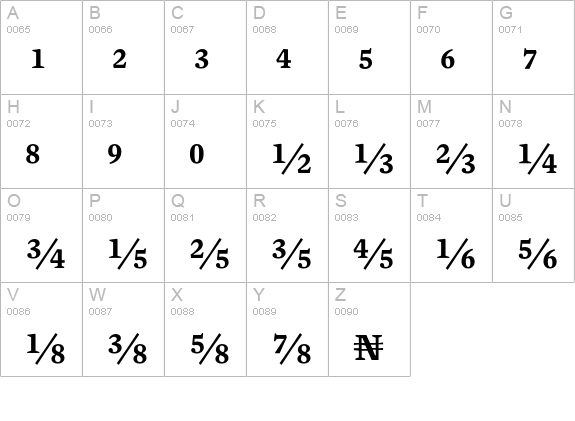
Mercury Numeric G2 Semibold Font Details
Mercury Numeric G2 Semibold is a sub-bold, structured variant in the Mercury typeface family \xE2\x80\x94 well suited to sub-headlines and emphasised passages.
Mercury Numeric G2 Semibold font exudes a sense of modernity and sophistication with its sleek and stylish design. This versatile typeface strikes the perfect balance between professionalism and creativity, making it an ideal choice for a wide range of projects. Featuring clean lines and a bold, commanding presence, Mercury Numeric G2 Semibold font is perfect for headlines, titles, and other prominent text elements. Its strong, confident appearance commands attention and ensures that your message is delivered with impact. The best part? Mercury Numeric G2 Semibold font is available for free download at FontsMarket.com. Whether you're a designer looking to add a touch of elegance to your project or a business owner in need of a font that makes a statement, this font is the perfect choice. Download it today and elevate your design to new heights with Mercury Numeric G2 Semibold font.